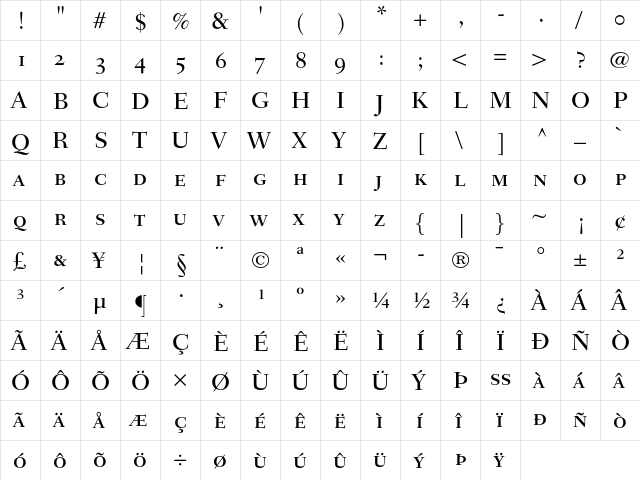
Fairfield LH 55 Medium SC Font Preview
Fairfield LH 55 Medium SC
Design Context for Fairfield LH Typeface
Fairfield LH offers clean, dependable letterforms without strong stylistic allegiance, making it a practical choice for designers who need flexibility.